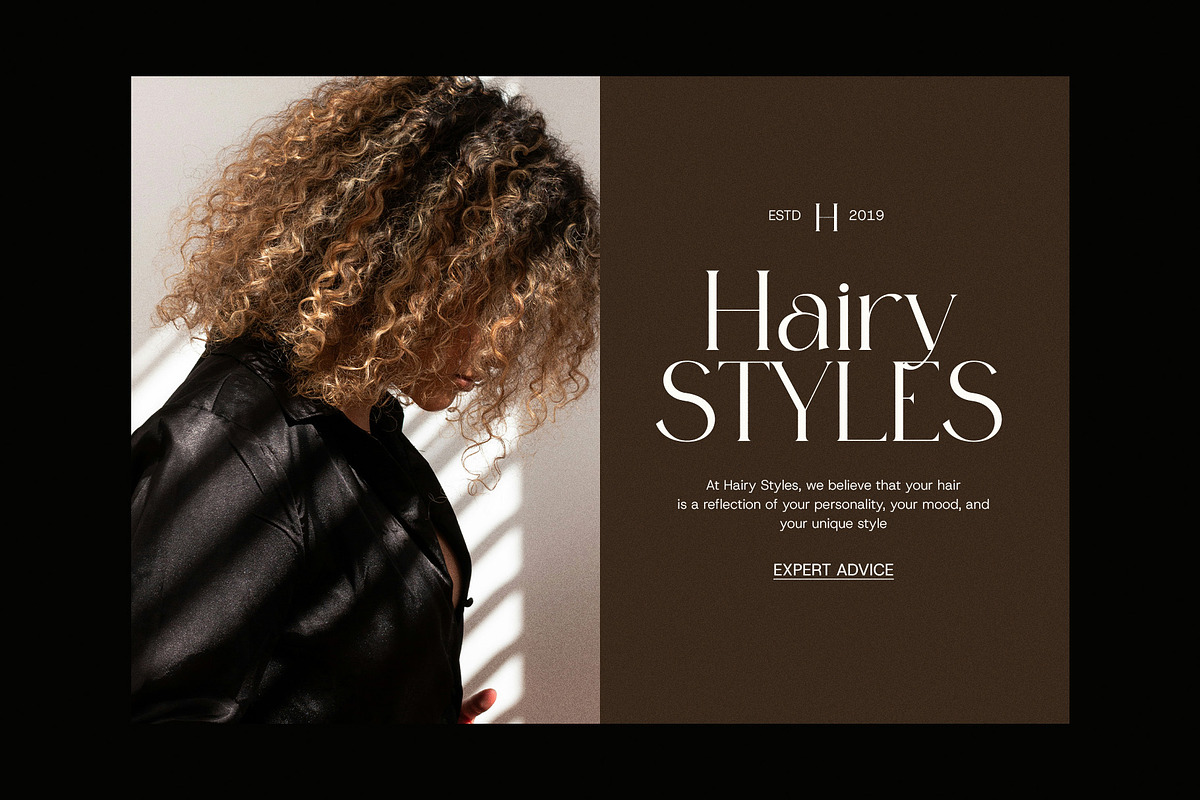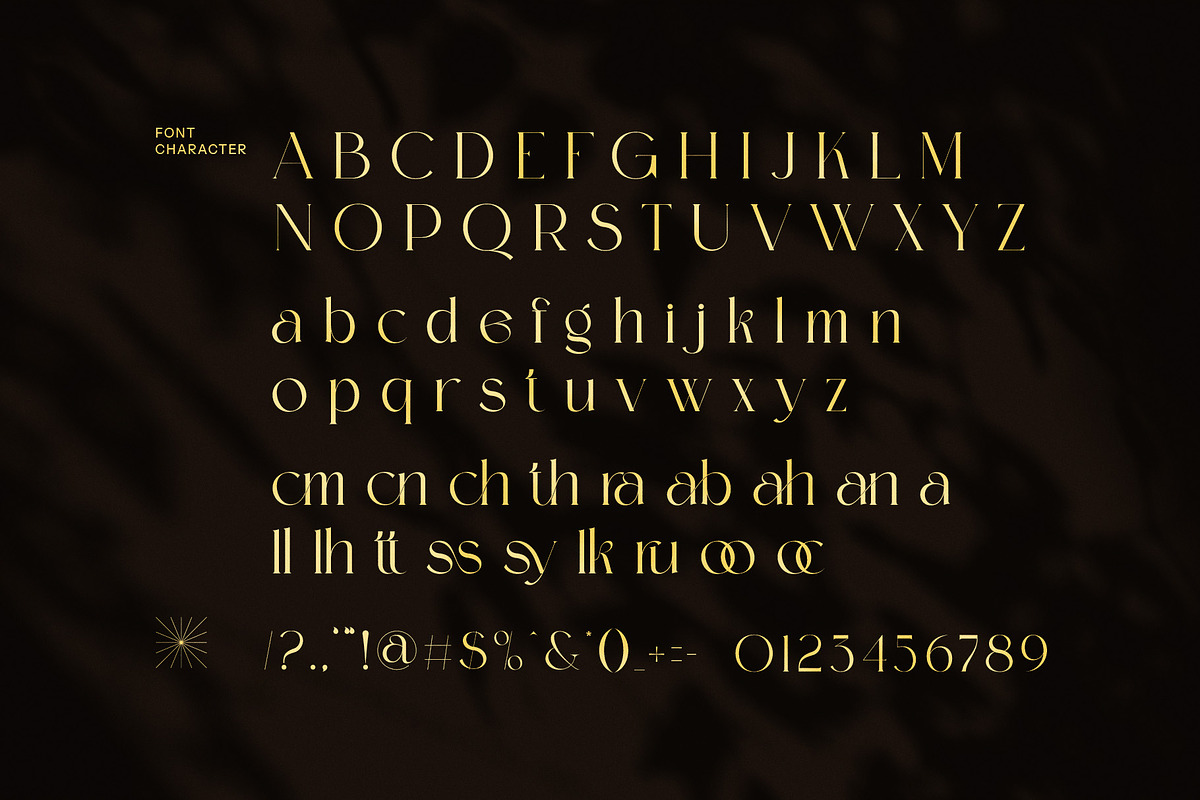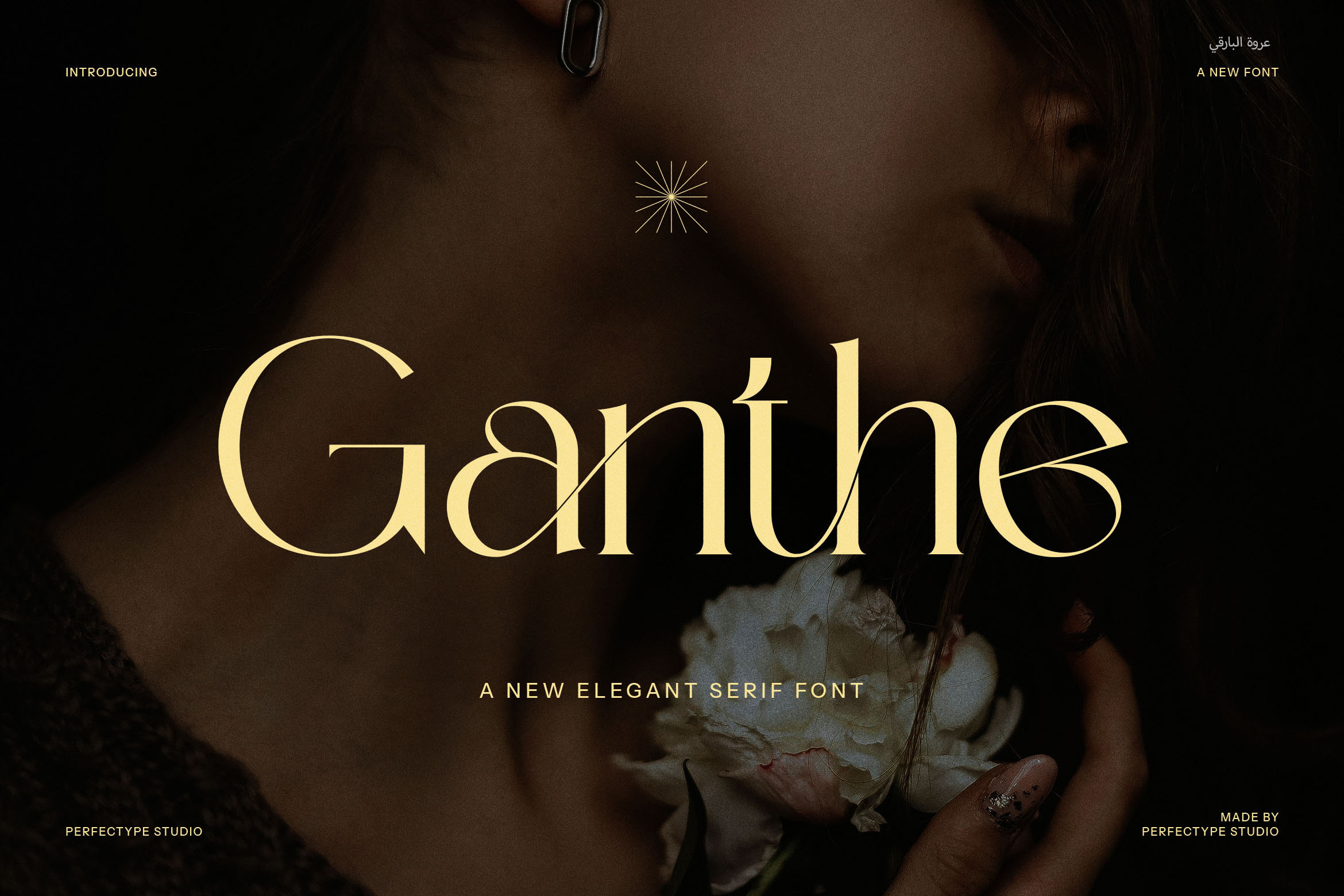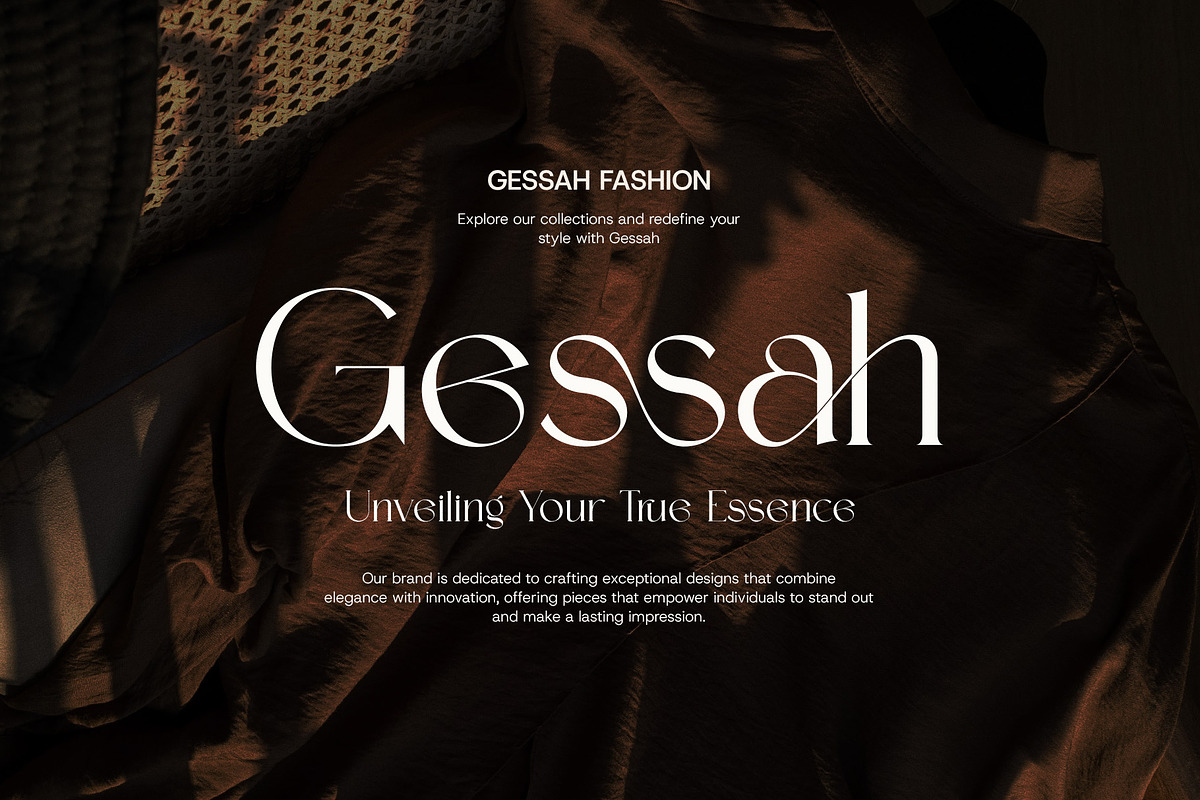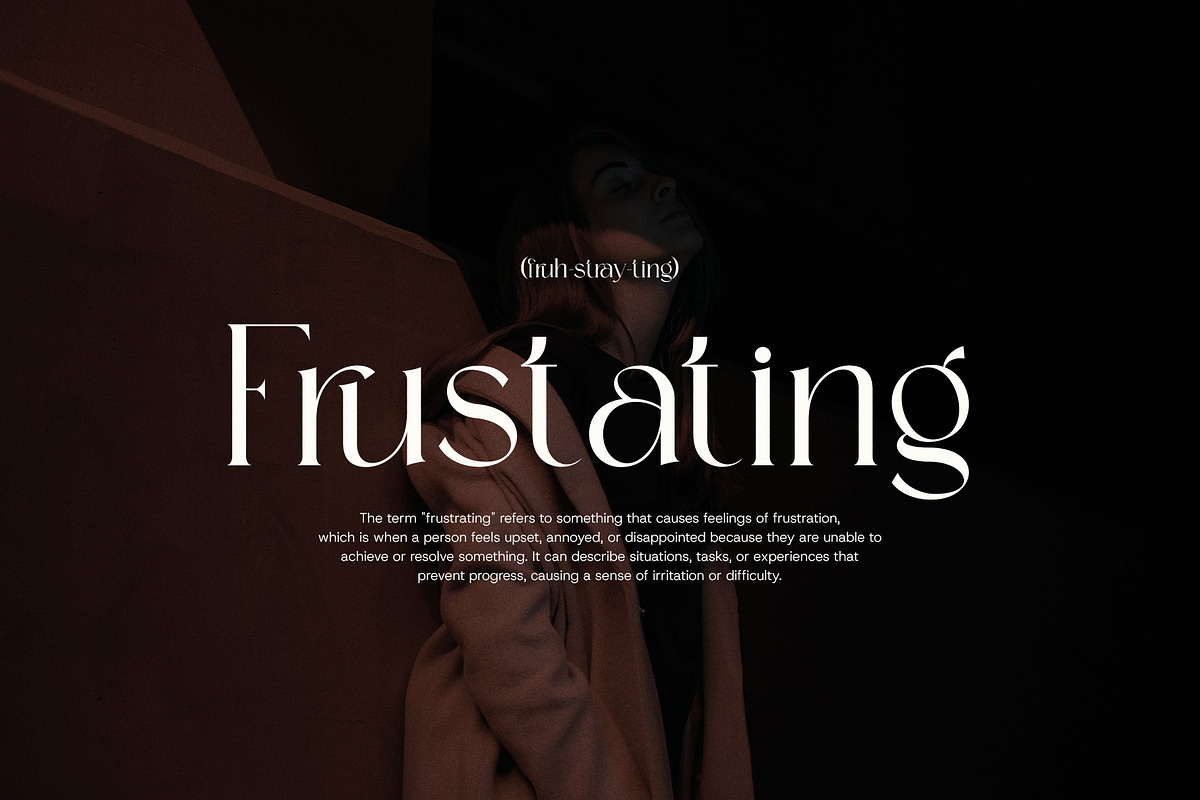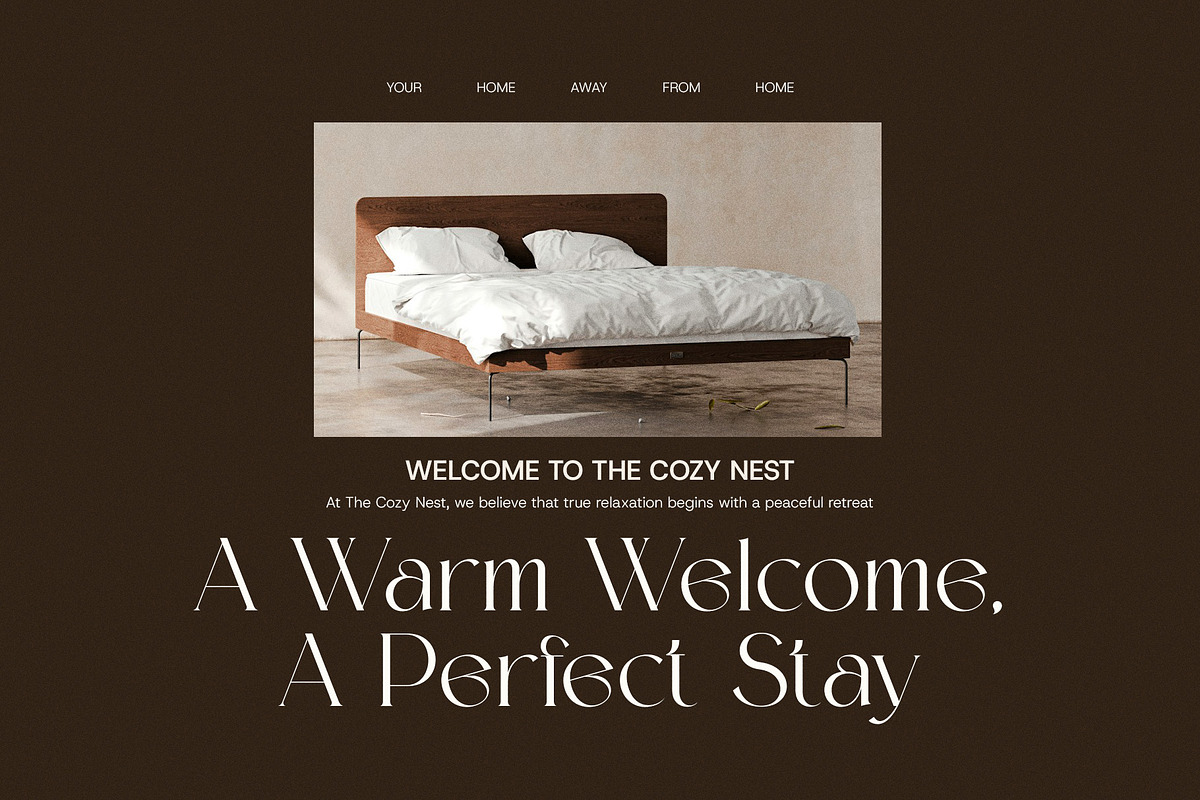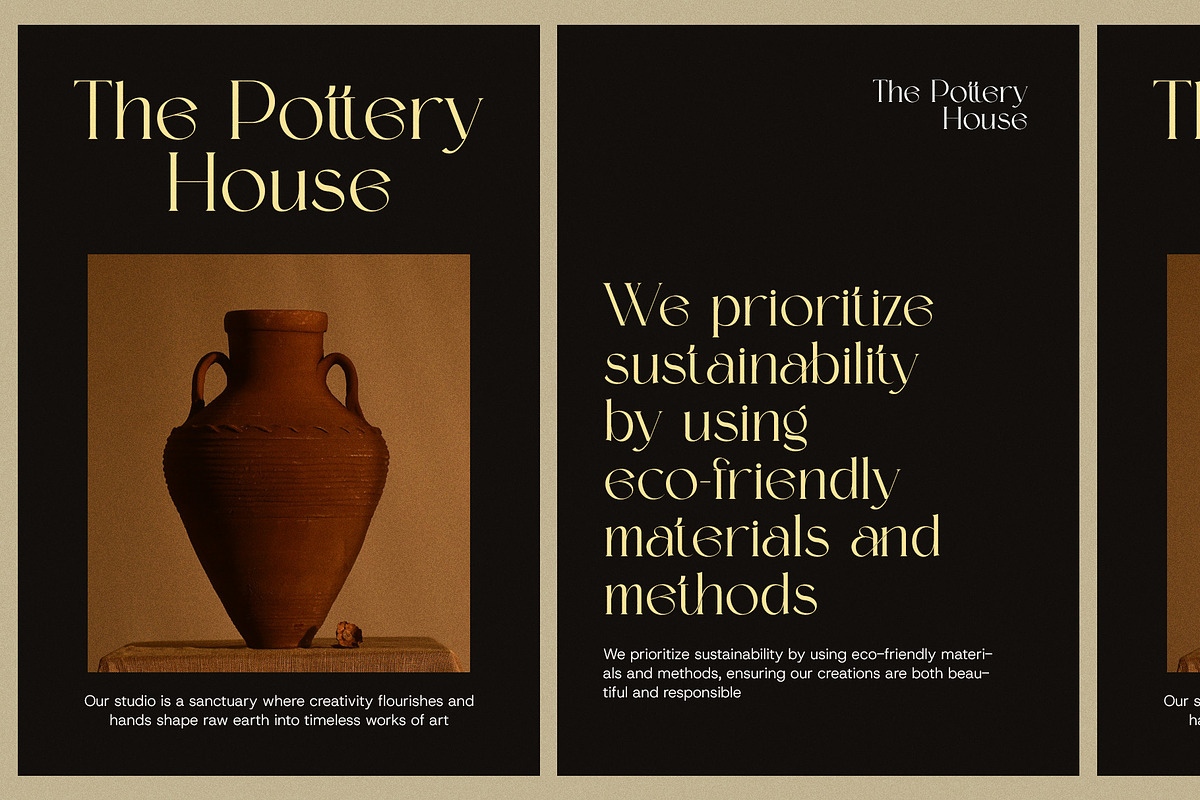
Ganthe Modern Serif Font
Ganthe Modern Serif Font is a bold and sophisticated typeface that effortlessly combines modern design with timeless elegance. With its sleek serifs and clean, sharp lines, Ganthe offers a refined yet contemporary feel that is perfect for high-end projects. The font’s beautifully crafted ligatures and alternate characters provide an extra layer of uniqueness, allowing you to infuse your designs with character and flair.
Ideal for a wide range of applications, Ganthe Modern Serif is a versatile choice for logos, branding, and visual identities. Its strong, confident appearance makes it especially effective in premium advertising, luxury product packaging, and editorial layouts. Whether you’re designing for a boutique, a fine dining restaurant, or a lifestyle brand, Ganthe brings a sense of sophistication and distinction to any creative endeavor.
This font shines equally in digital and print formats, making it perfect for websites, magazines, brochures, and advertisements. Its balance between readability and style ensures that it performs well in both large headings and smaller body text. Ganthe’s elegant yet modern design strikes the perfect balance between professionalism and creativity, allowing your brand to stand out in any market.
If you’re looking to elevate your design projects with a distinctive, high-quality font that speaks to both elegance and modernity, Ganthe Modern Serif Font is the ideal choice. Perfect for any designer seeking a stylish, versatile, and impactful typeface.